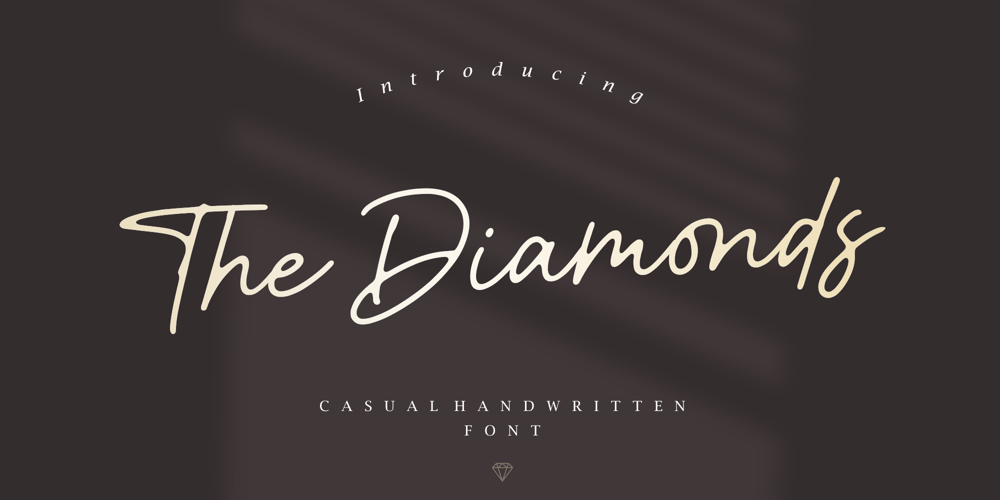
The Diamonds Font Family was designed by Bagus Arya Kirana and published by Krntype Studio. The Diamonds contains 1 styles and family package options. The Diamonds is a stylish hand-writen script font. designed to display luxury and shopisticated writing.With this font, you can built an amazing work. Such as stylish luxury branding & logos, packaging, handwritten quotes, merchandising, advertising, etc.